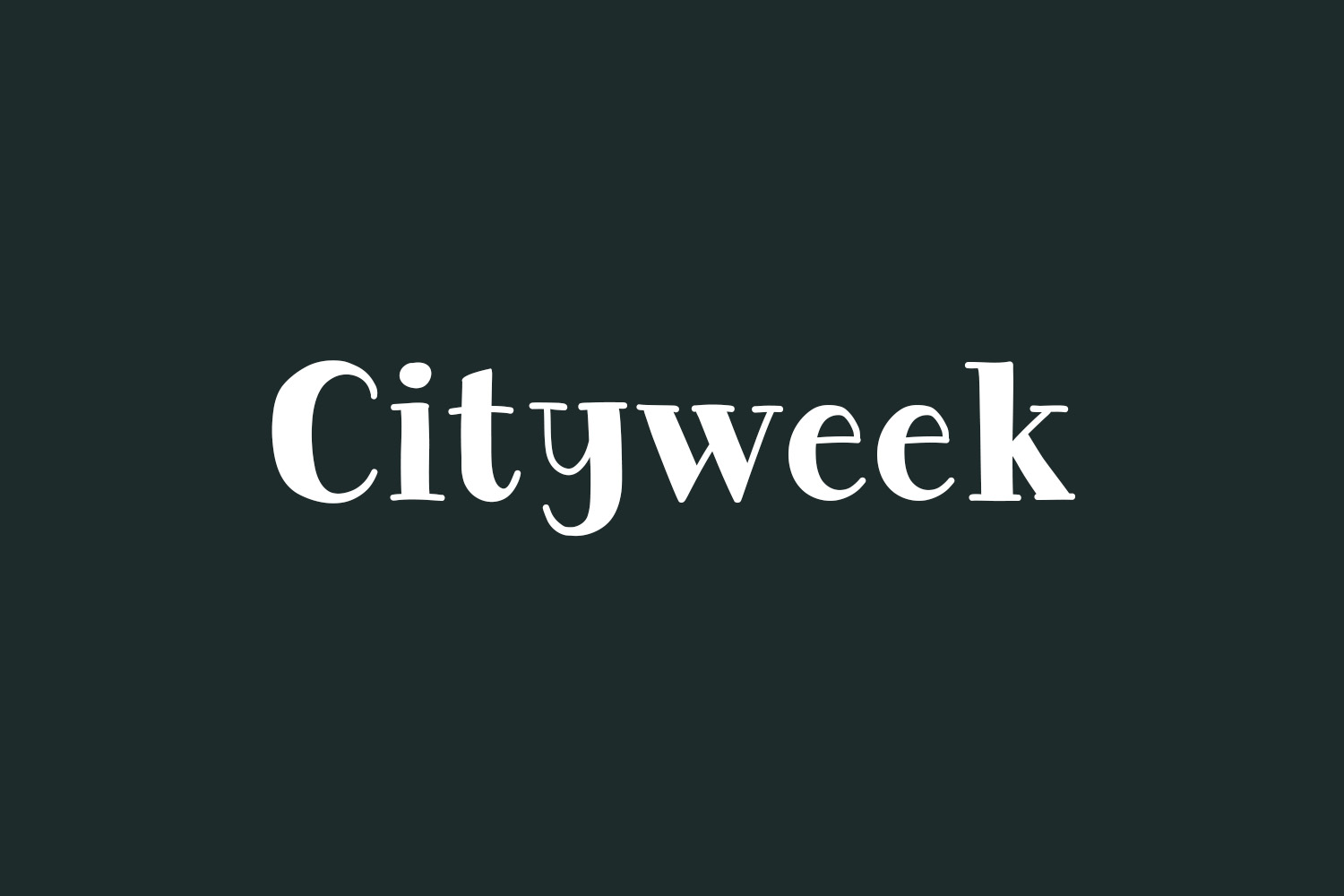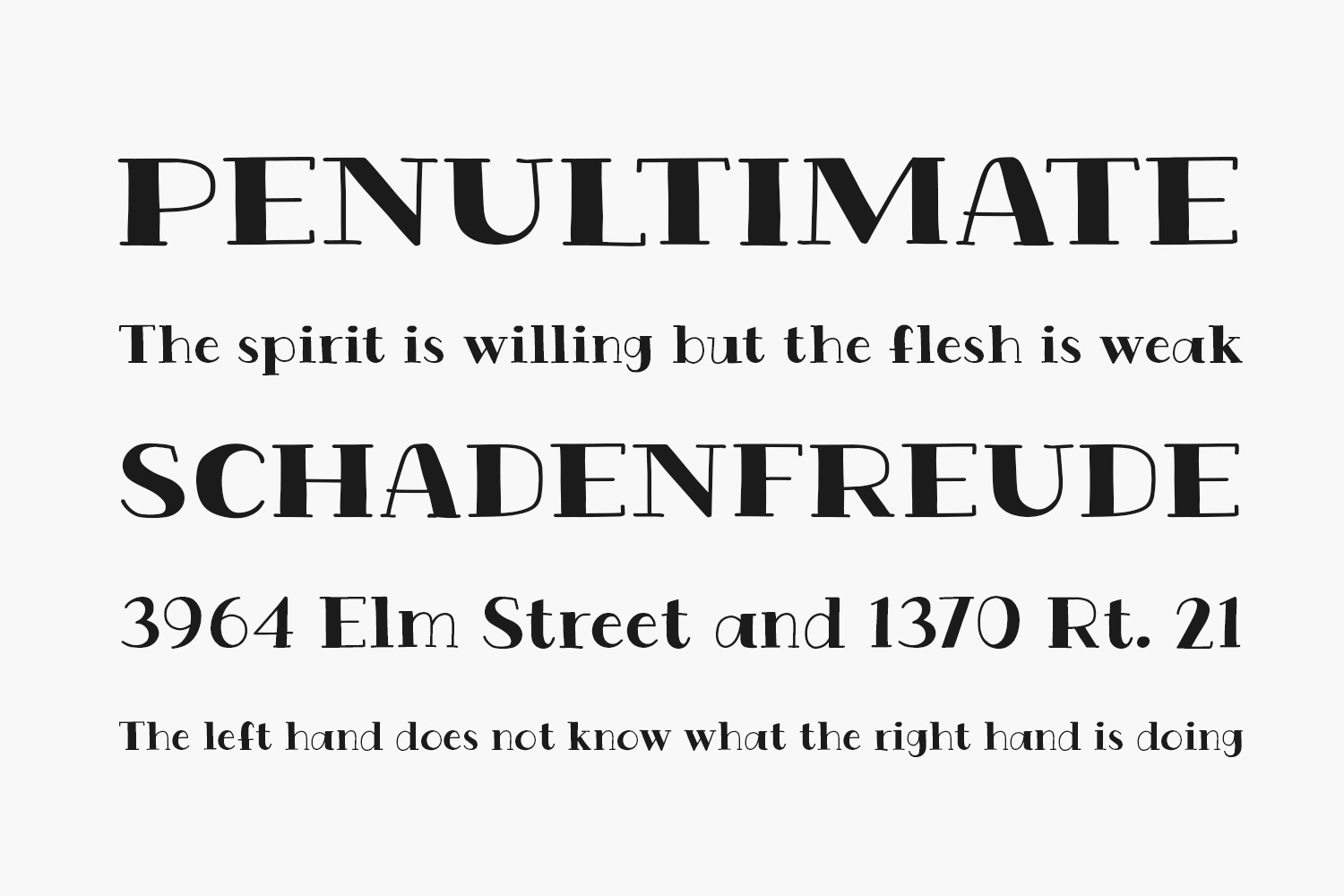
Cityweek Free Font is a charming and contemporary serif font, ideal for a variety of design projects such as posters, logos, magazines, book covers, banners, and more! Acquire this exceptional font to craft delightful designs effortlessly. Its versatility allows for seamless integration into a vast array of creative ventures, enhancing and amplifying their visual impact. Incorporate it into your imaginative concepts and experience the enhancement it brings to each one. Cityweek Free Font is free for personal or commercial use.